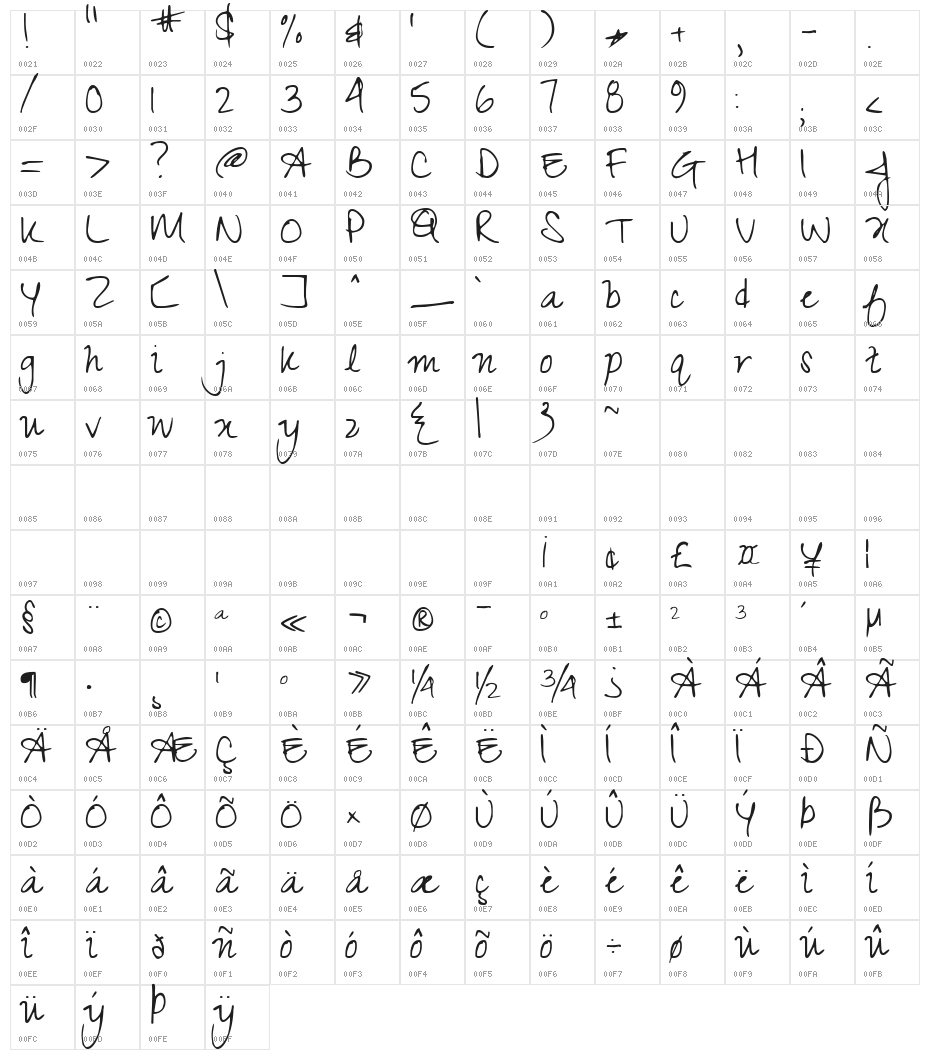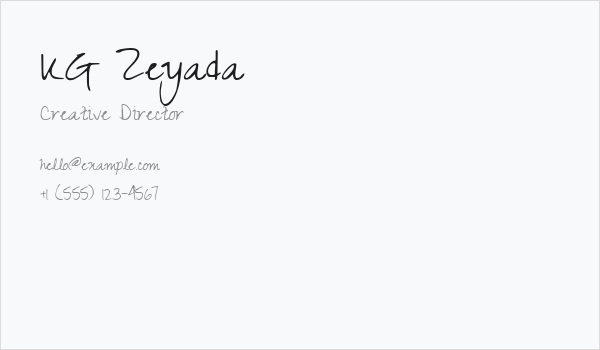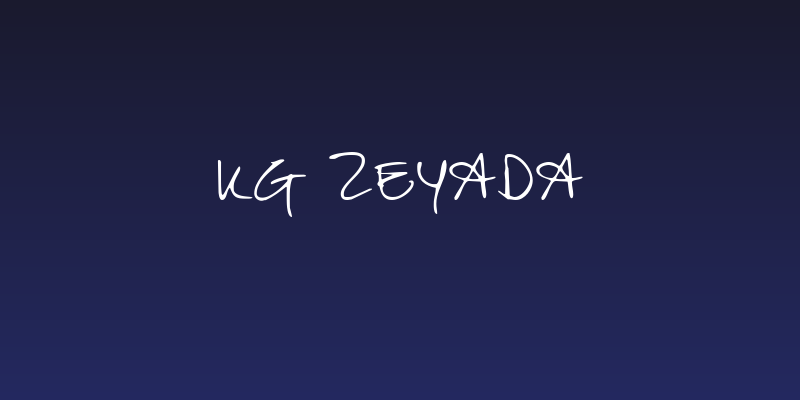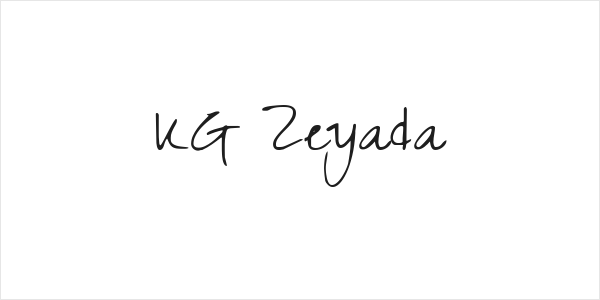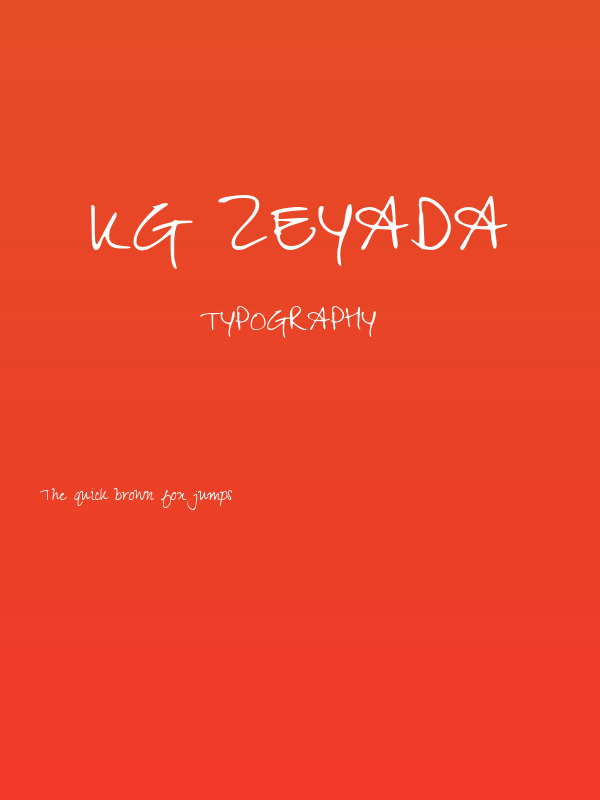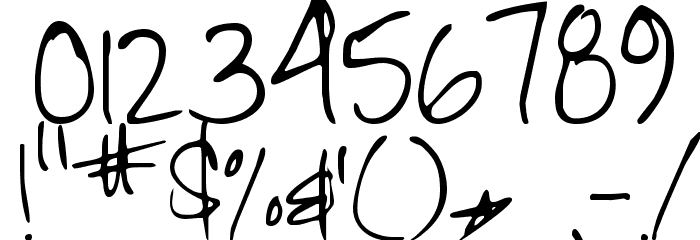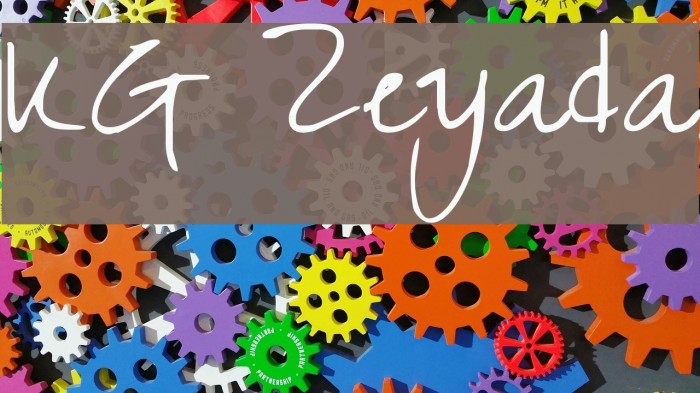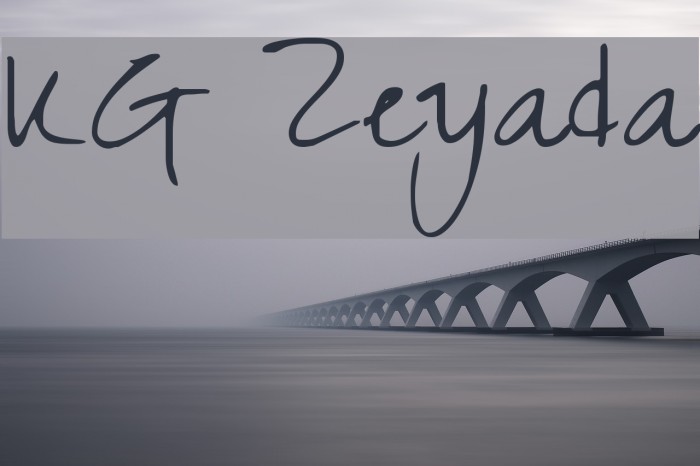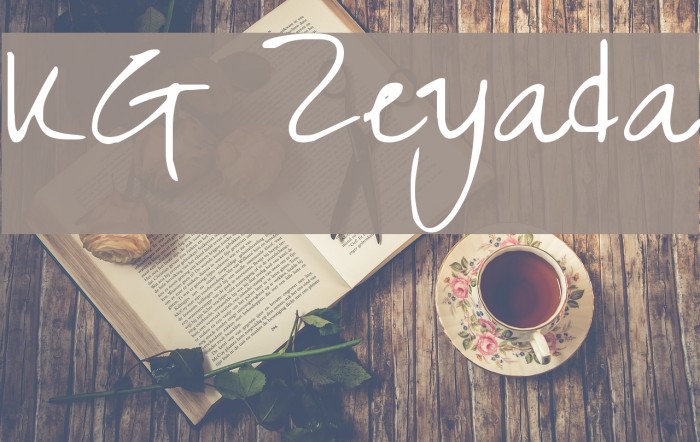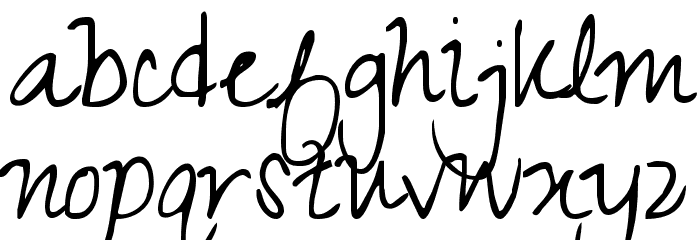
KG Zeyada Font
KG Zeyada Description
This font features a lively and expressive handwritten style, characterized by its fluid and dynamic strokes. The uppercase letters exhibit a playful and slightly whimsical appearance, with varying stroke widths that add to its charm. The lowercase letters maintain a consistent flow, enhancing readability while preserving the font's unique personality. Numbers and special characters are crafted with the same attention to detail, ensuring a cohesive look across all elements. The overall design is informal yet elegant, making it suitable for projects that require a personal touch.
| Proposed Projects | Ideal for invitations, greeting cards, personal branding, and creative projects that benefit from a handwritten touch. |